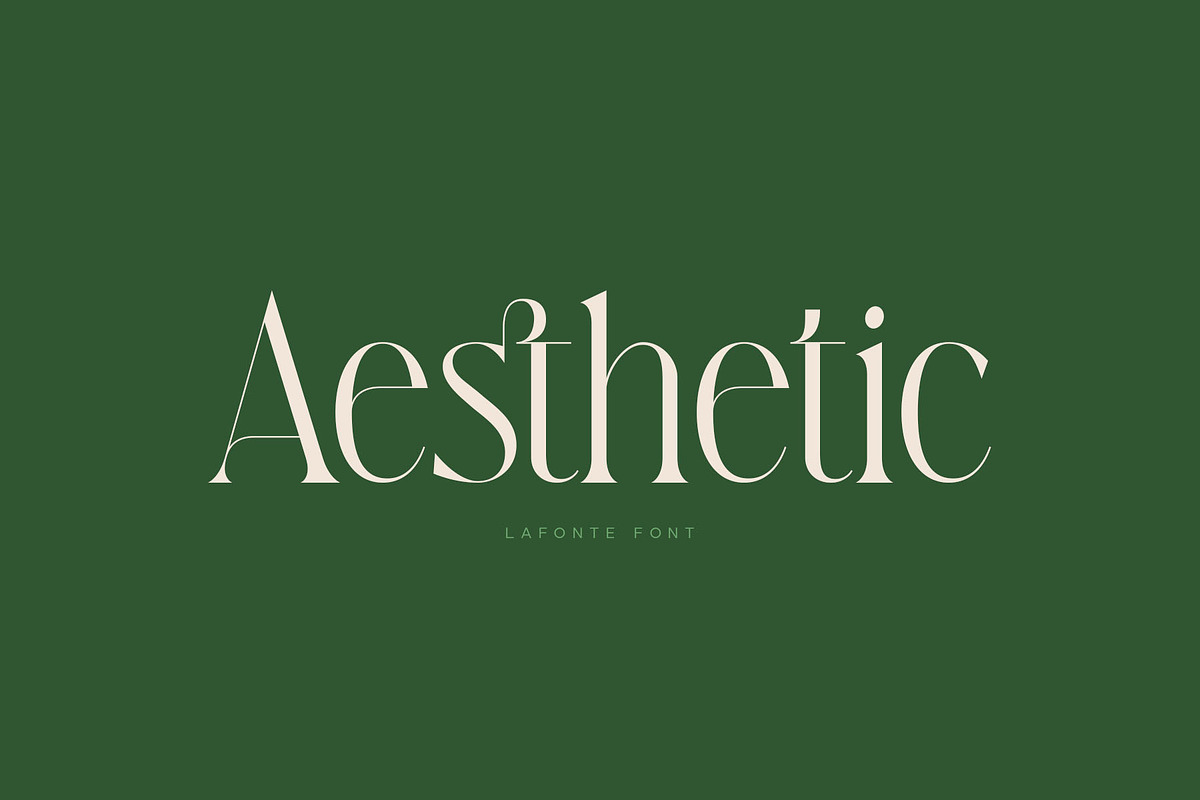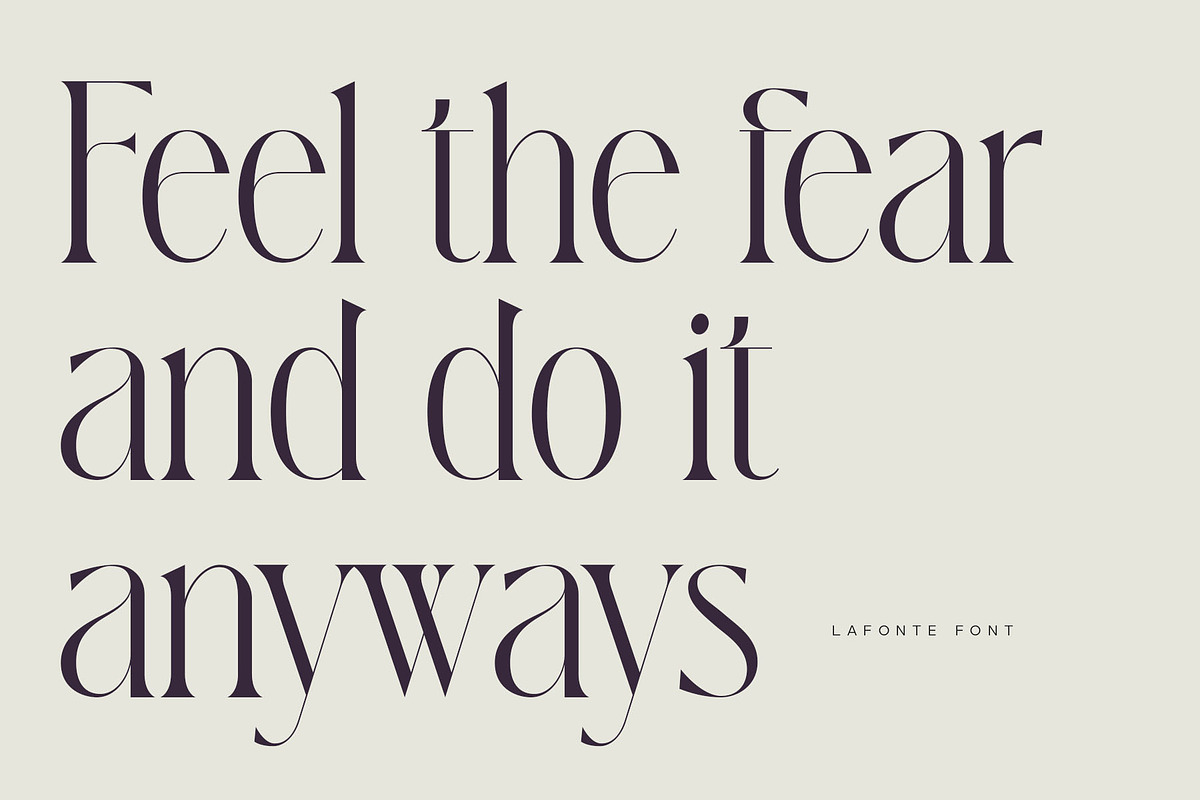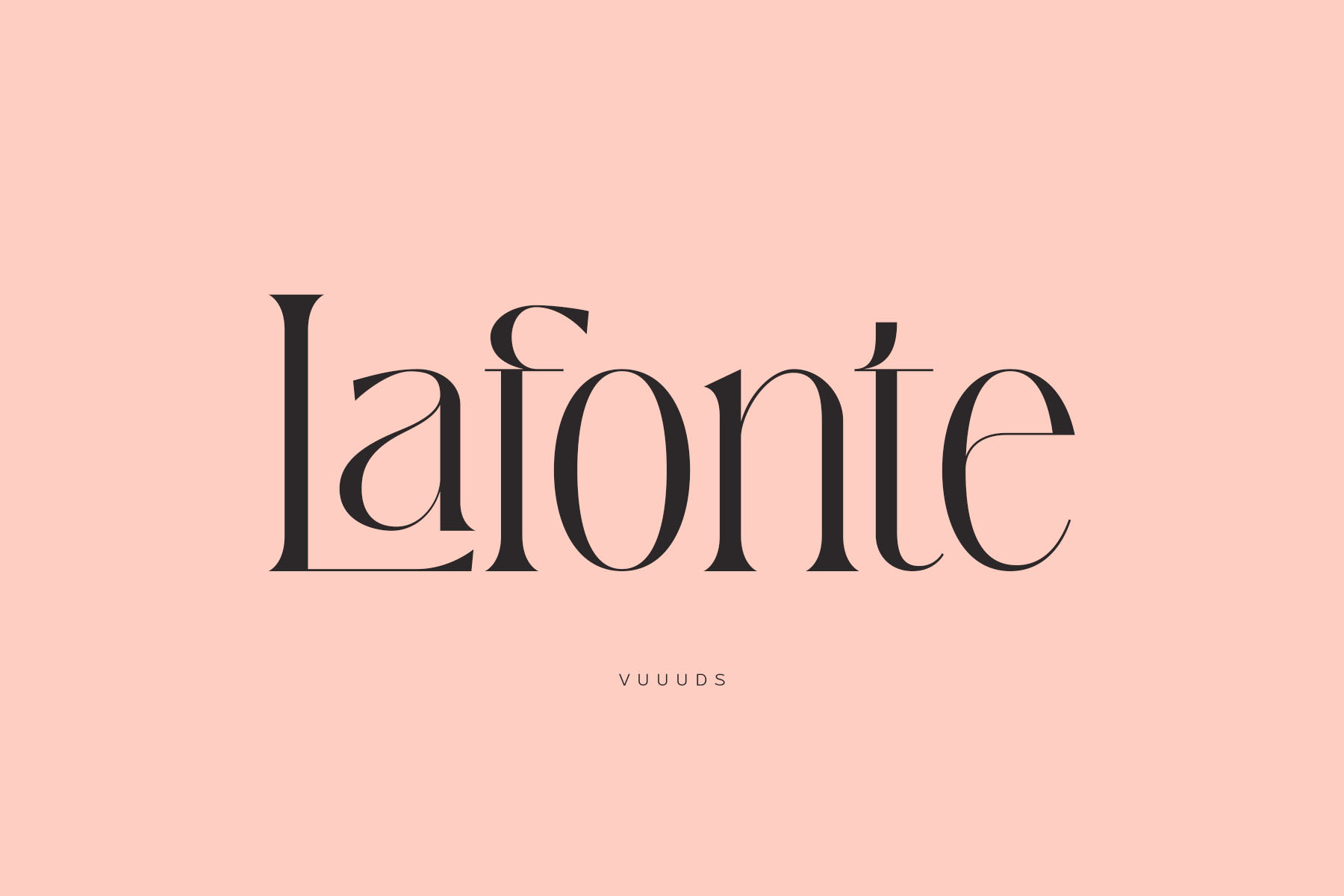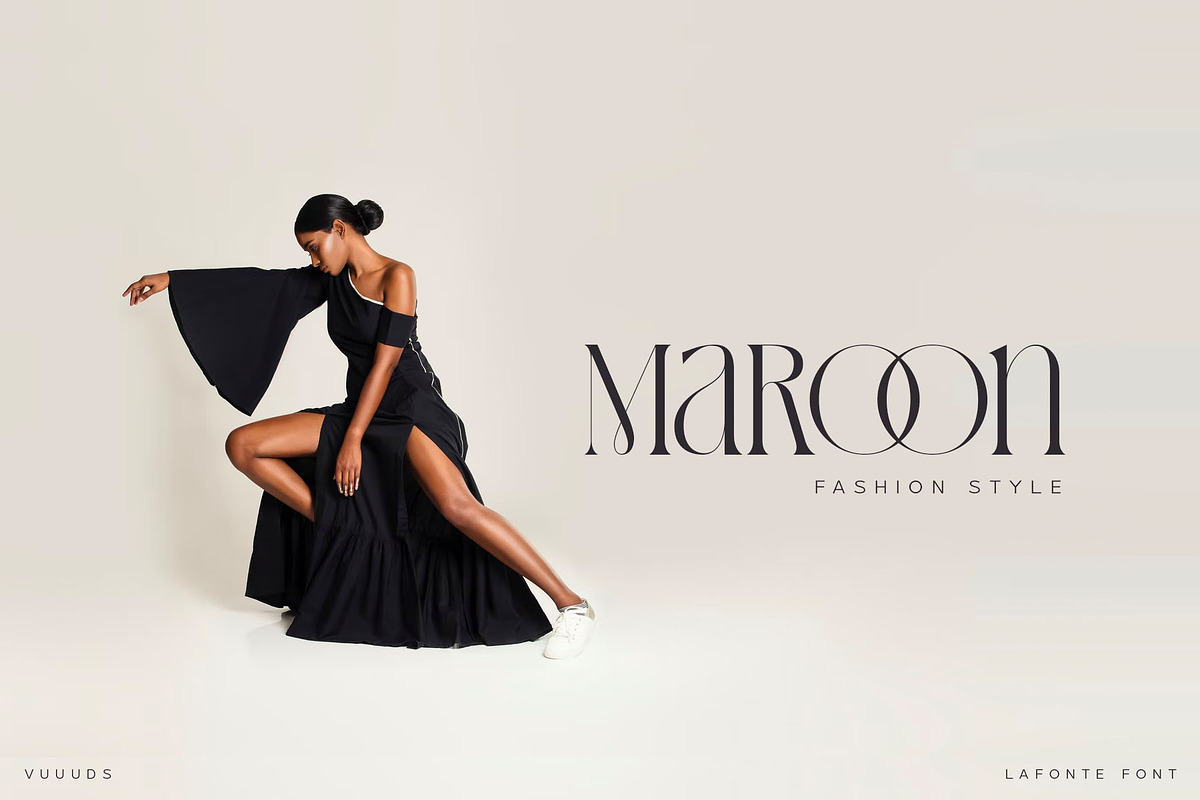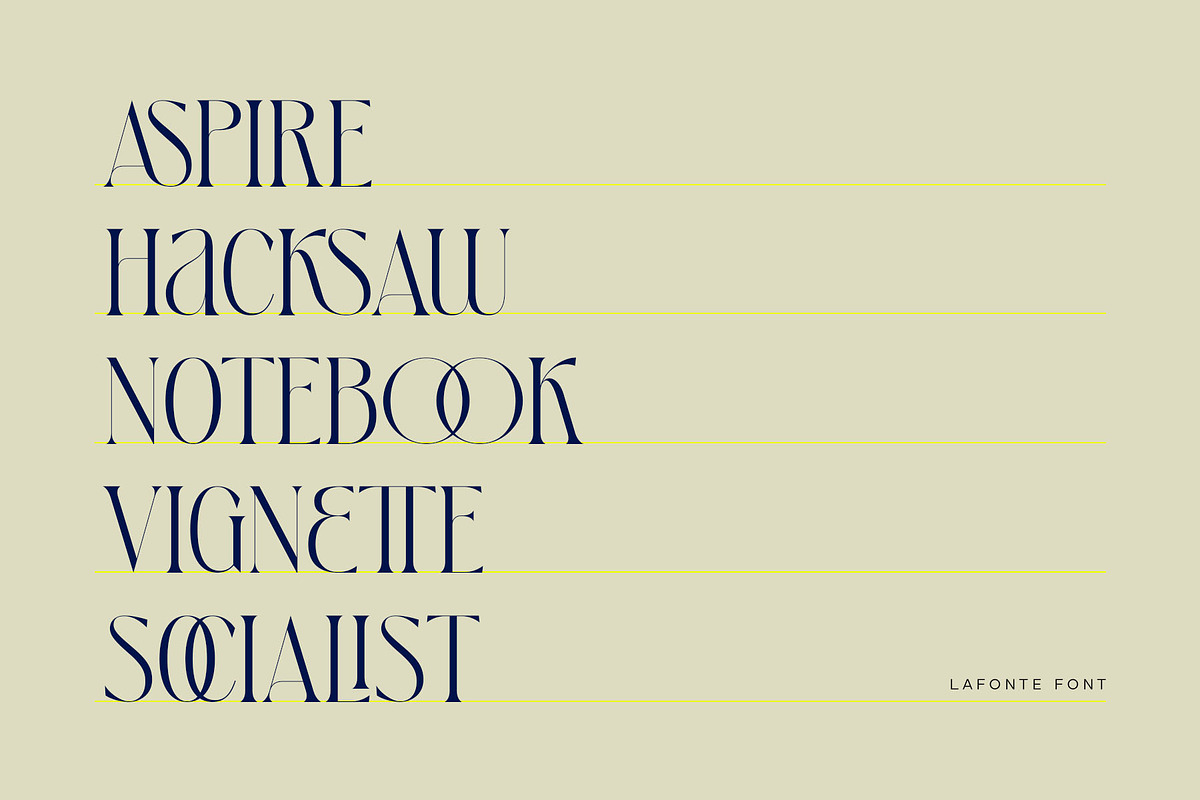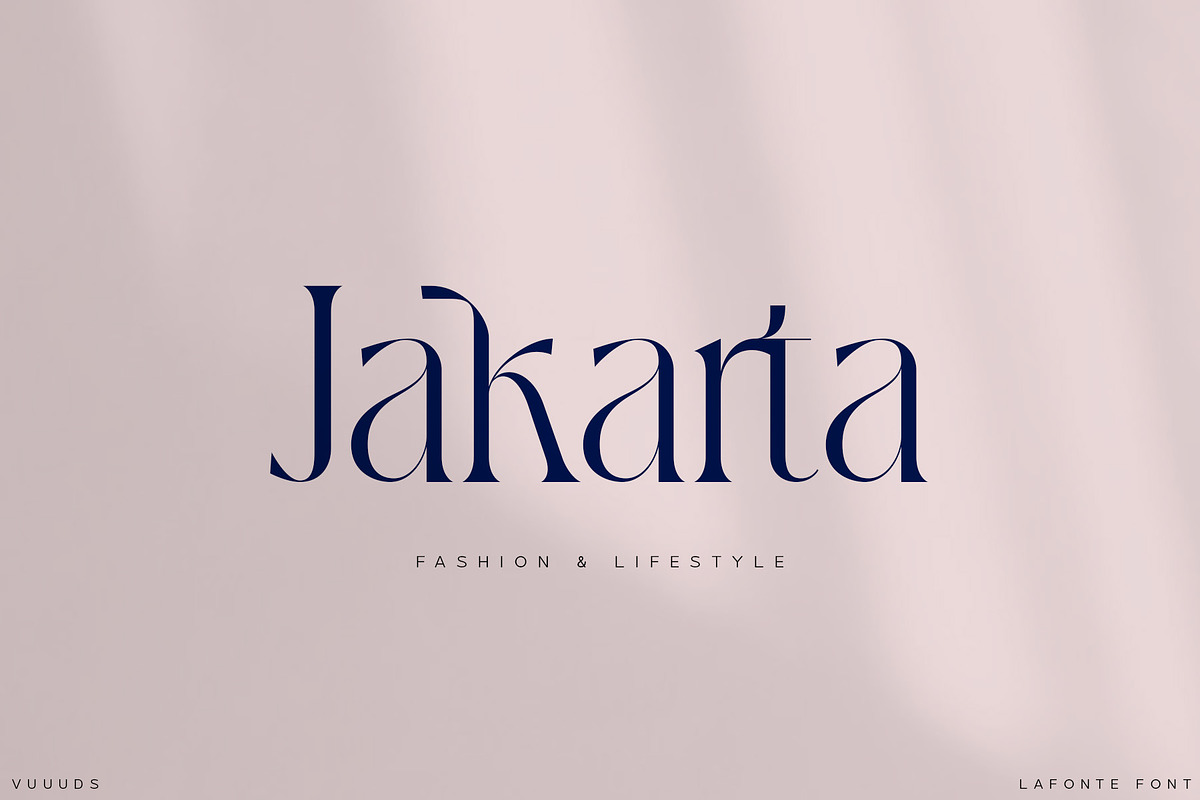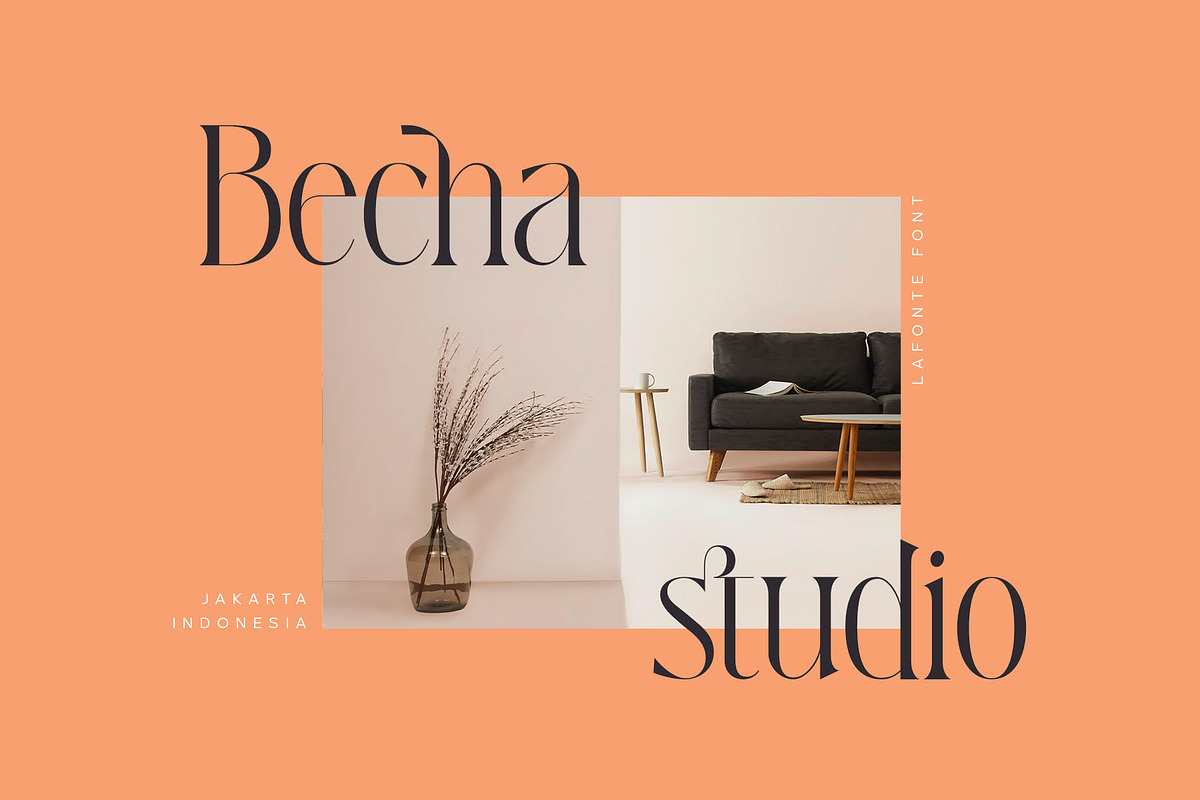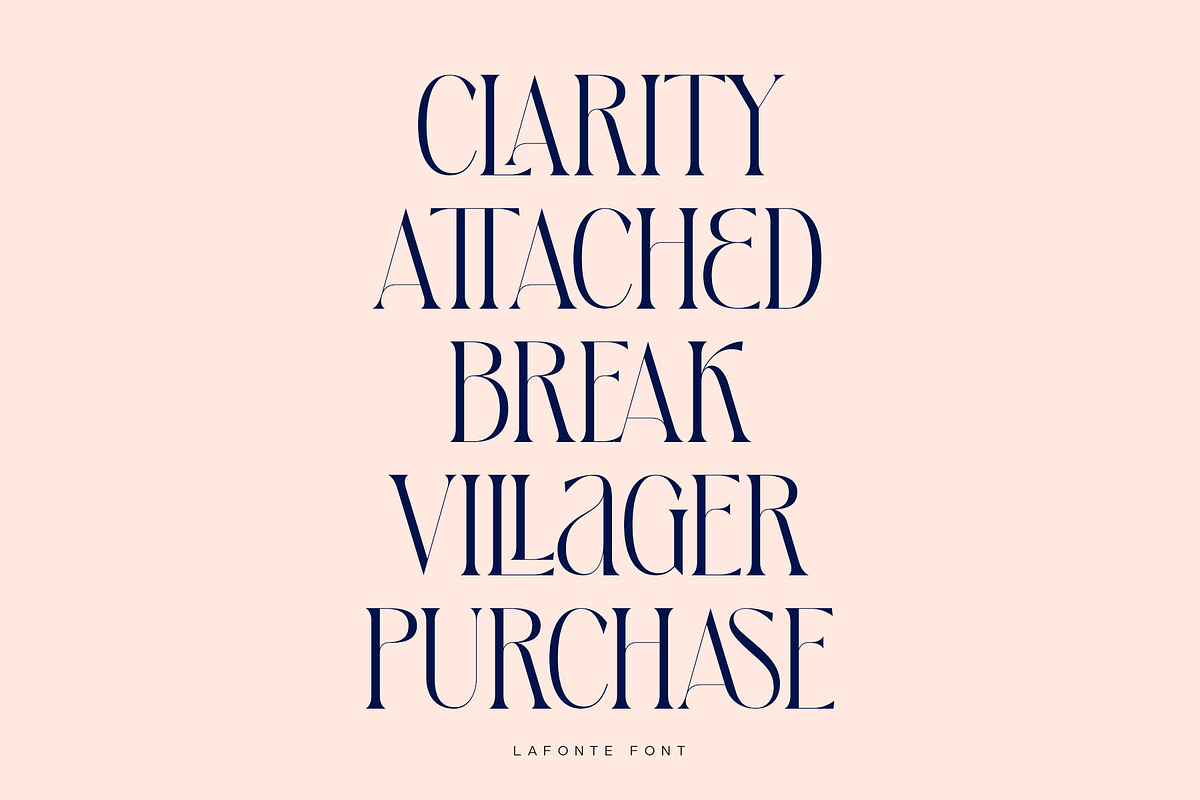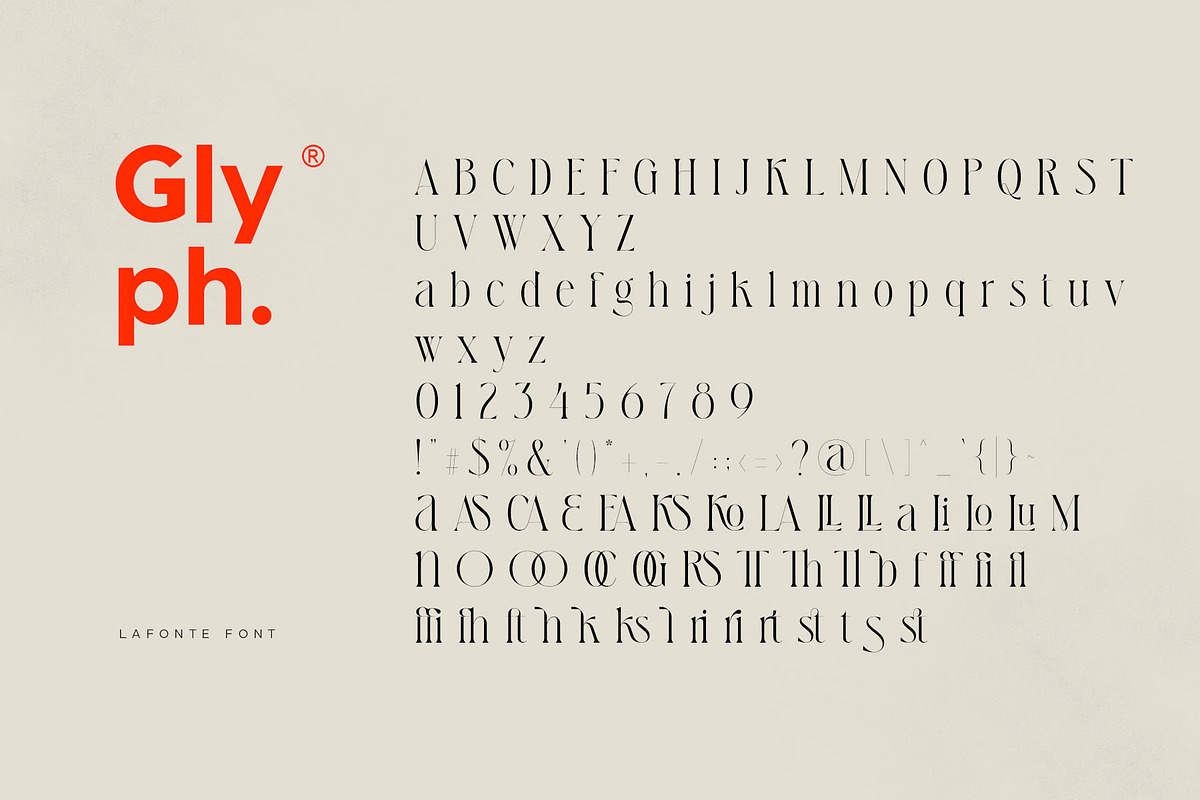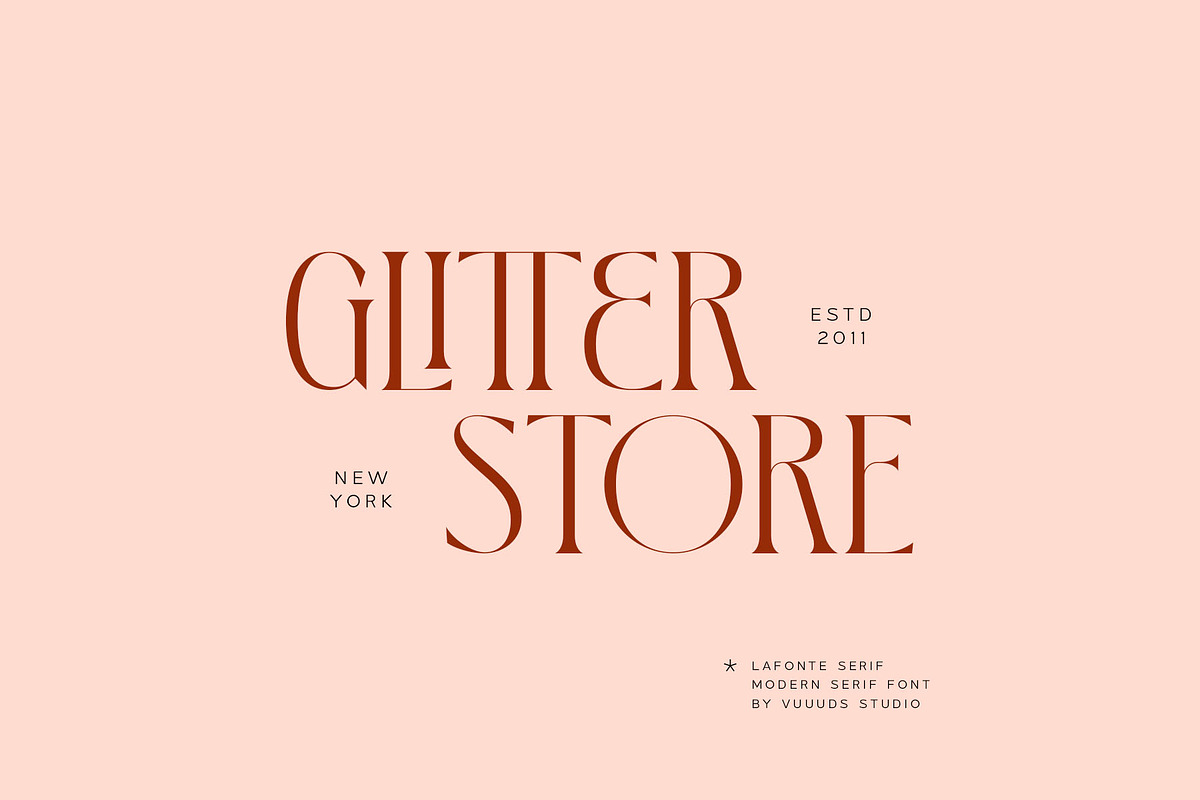
Lafonte Font
Introducing Lafonte Font!
Lafonte is modern serif font, every single letters have been carefully crafted to make your text looks unique.